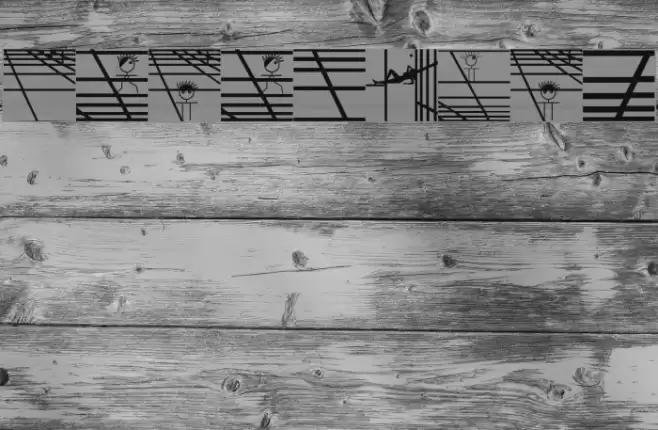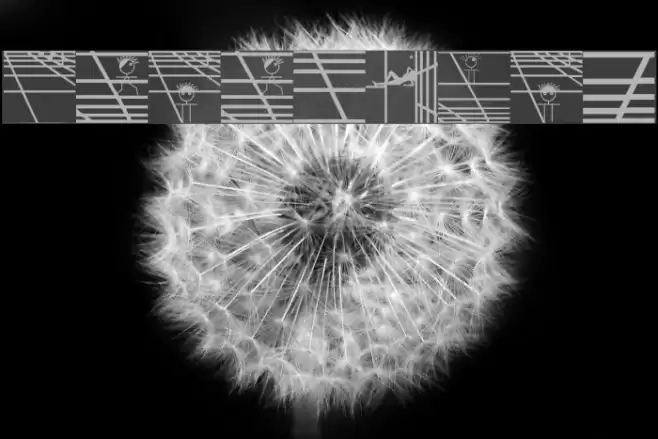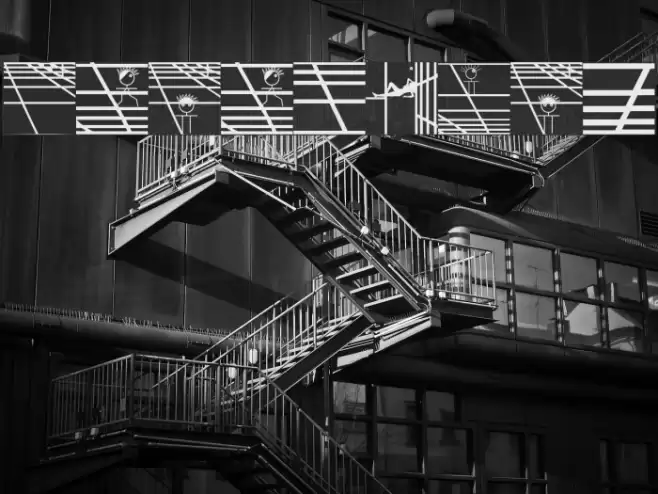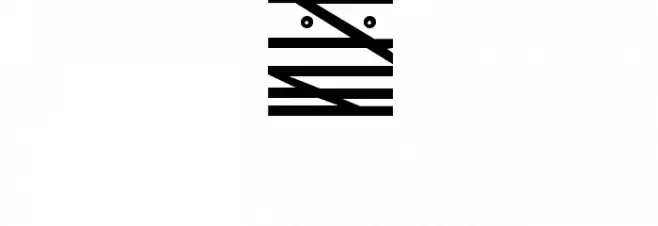
DadaGridB Font
DadaGridB Description
Highly abstract and experimental typeface composed of intersecting horizontal and diagonal lines, grids, and occasional figurative elements such as stick figures and silhouettes, resulting in a chaotic, deconstructed appearance that challenges legibility.
Abstract, grid-based display font with experimental, chaotic forms from Uncategorized fonts.
- Proposed Projects: Avant-garde posters, album covers, experimental art projects, gallery installations, zines.
- Overall Style: Experimental, Abstract, Avant-garde, Decorative
- Use Case: Artistic headlines, visual art, non-traditional branding, conceptual design